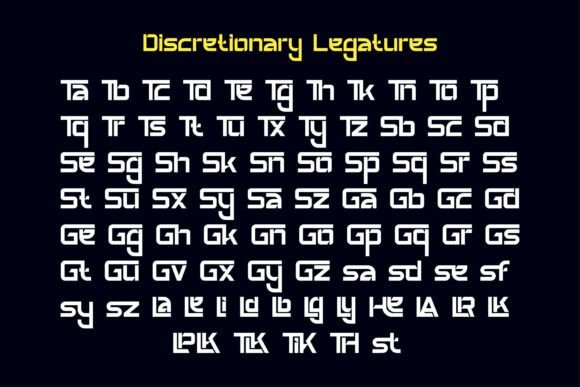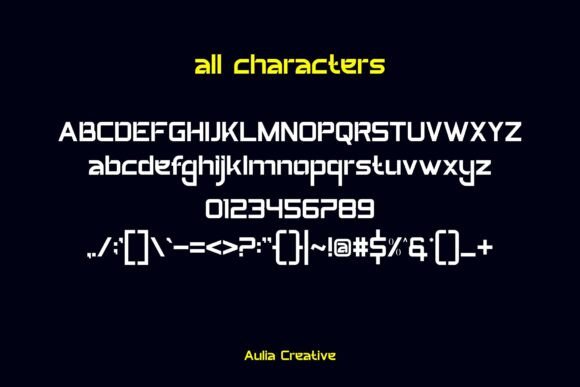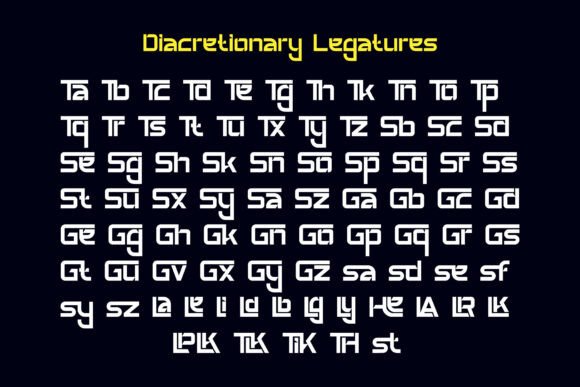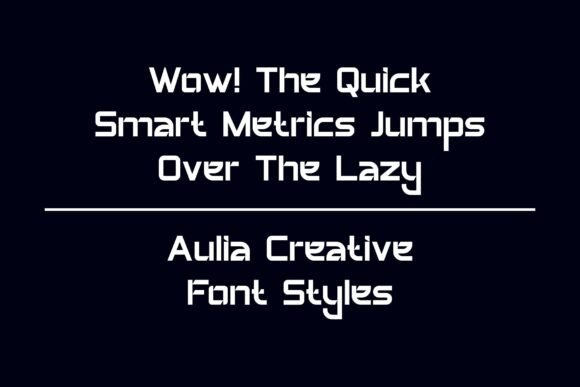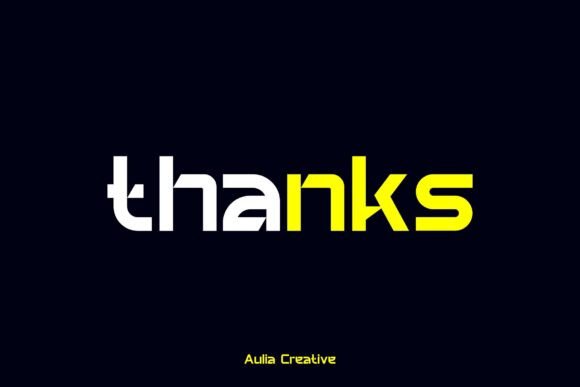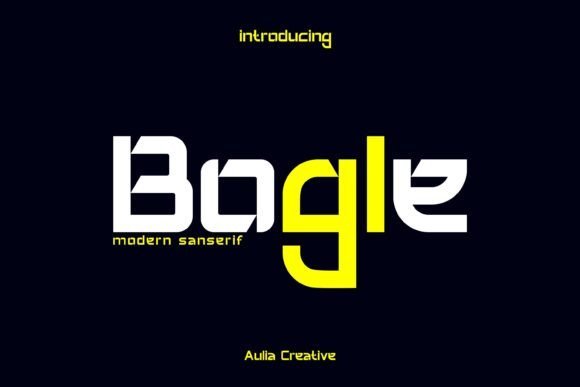
Have you ever been stuck on a design project, staring at a blank page, unsure of how to bring your vision to life? That’s when the perfect font can make all the difference. For me, it’s always been a moment of serendipity, stumbling upon a font that perfectly captures the essence of my idea. And that’s exactly what Bogle Font does – it brings a level of sophistication and elegance to any creation.
Bogle Font is a bold and assertive sans serif font designed to make a statement. Whether you’re working on a logo, a brochure, or a website, this font has the potential to elevate your design to the next level. As a valuable addition to any designer’s library, Bogle Font is a game-changer. Its versatility and impact make it a must-have for anyone looking to make a lasting impression.
- Font Family: Bogle is a sans-serif font family.
- Character Count: 1024 characters, including uppercase and lowercase letters, numbers, and punctuation.
- Unique Characteristics: Bogle features a clean and modern design, with a focus on legibility and readability, making it suitable for body text and headings in digital and print media.
As a designer, I was excited to dive into the Bogle font, and I must say it’s a solid choice for various design projects. Here are some aspects that caught my attention:
- ✨ Versatility: Bogle font comes in a range of weights and styles, making it a great choice for different design needs. Whether you’re creating a bold headline or a clean body text, this font has got you covered.
- ✨ Legibility: The font’s design ensures excellent readability, even at smaller font sizes, which is a must-have for any font.
- ✨ Style: The unique, modern style of Bogle font makes it perfect for a variety of projects, from branding to publishing.
However, like any font, Bogle has its limitations:
- ⚠️ Limited script support: If you’re planning to use Bogle font for handwritten or cursive text, you might be disappointed. The font’s script support is limited, and it may not be the best choice for these types of projects.
- ⚠️ Limited language support: Bogle font primarily supports Latin-based languages, which might be a limitation for designers working with languages that use non-Latin scripts.
Overall, I’d say Bogle font is a great addition to any designer’s toolkit. While it may have some limitations, its versatility, legibility, and unique style make it a solid choice for a wide range of design projects.
Use Bogle Font in conjunction with bold or italic text to create emphasis and add visual interest to your design. Experiment with different font sizes and colors to create a cohesive look. You can also use Bogle Font in combination with other fonts to create a unique and eye-catching design.
Bogle Font is a versatile font that can be used in a variety of contexts, including:
- Business cards
- Brochures
- Posters
- Infographics